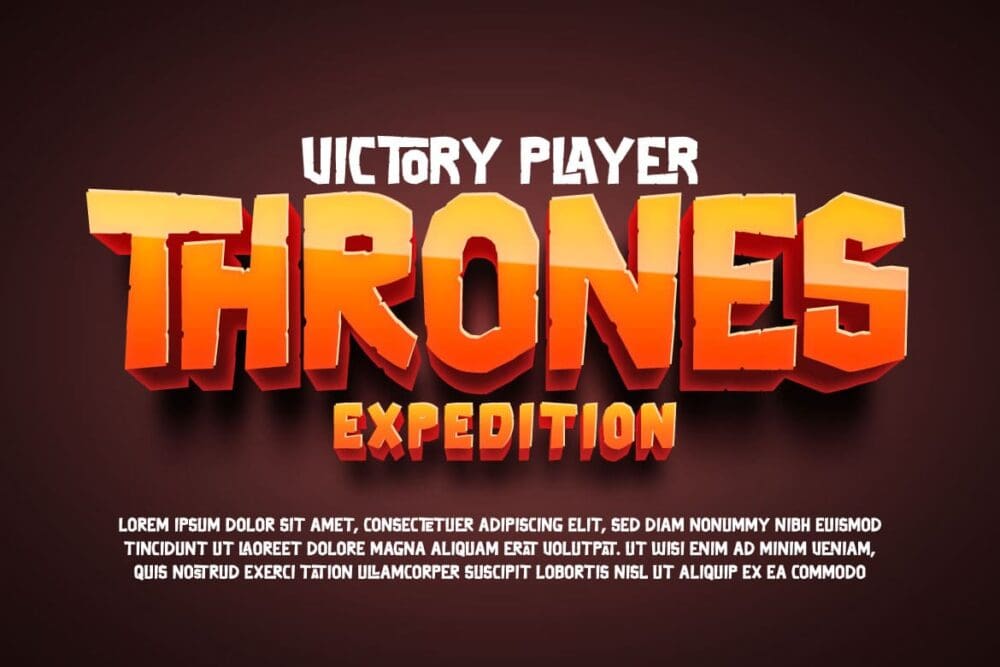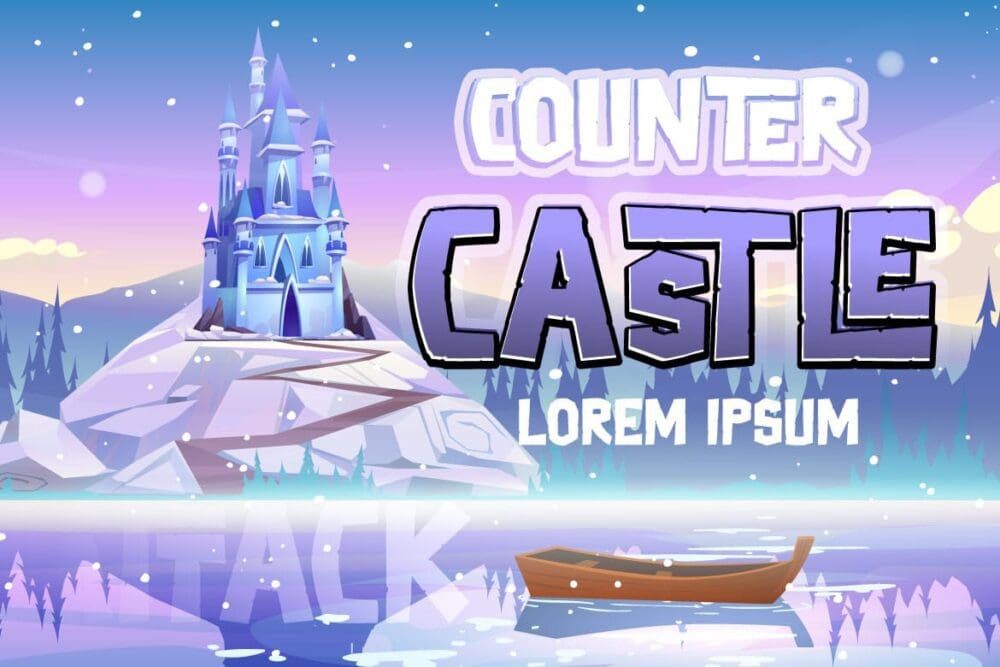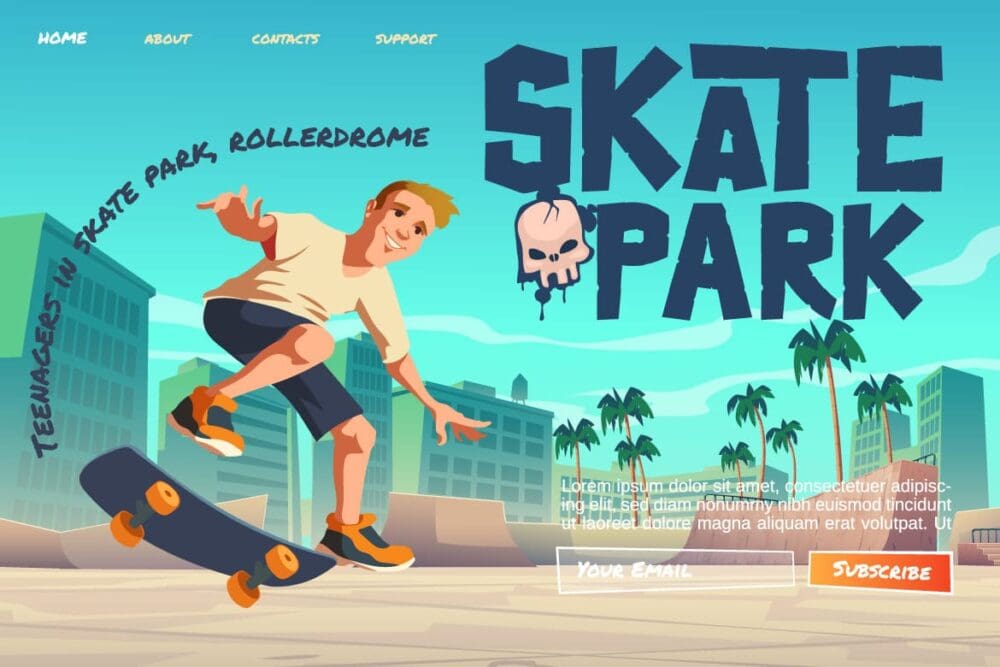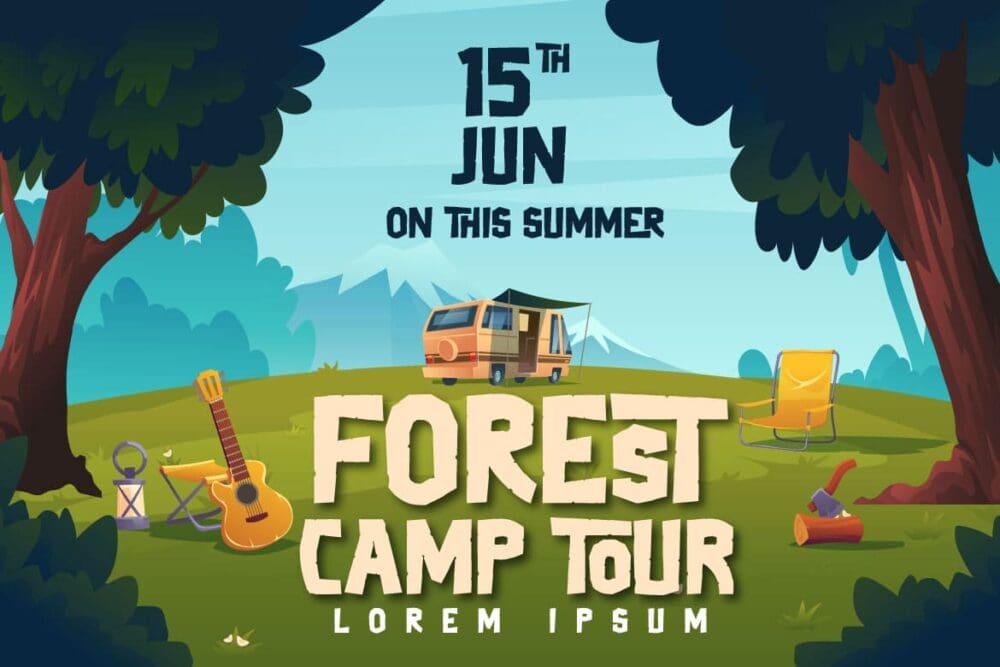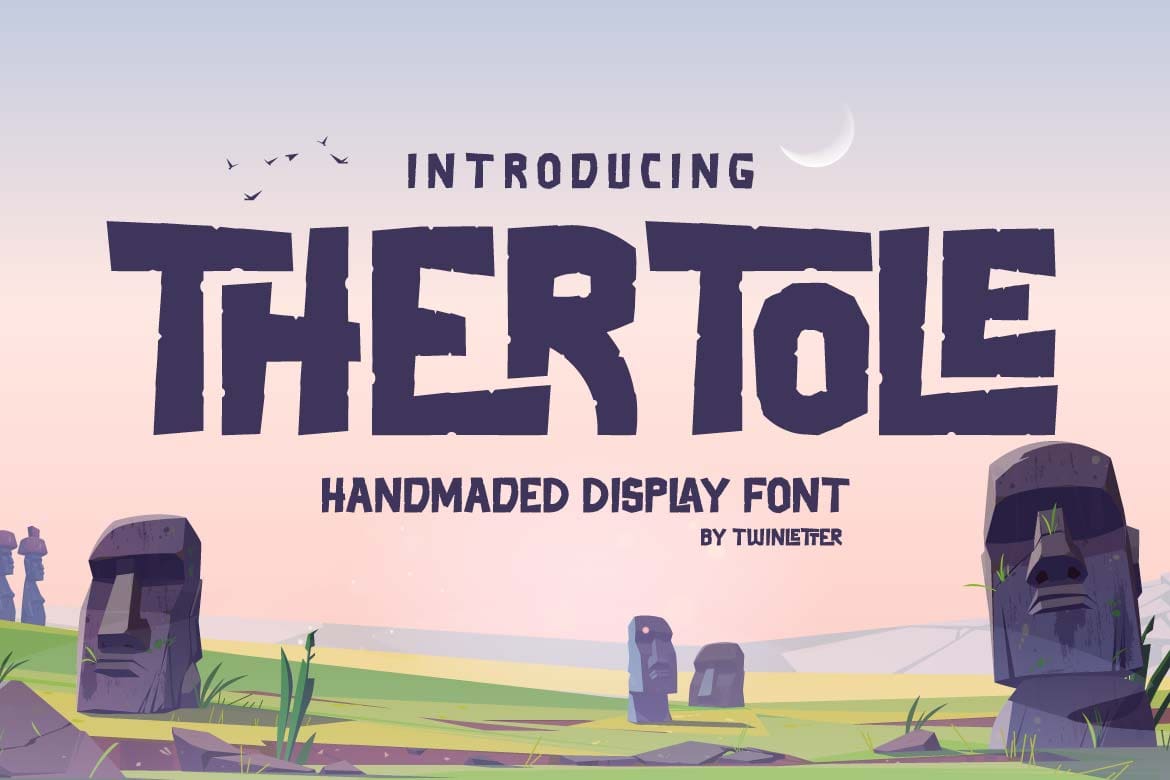
Thertole Font
Thertole is a dramatic Display Font with a strong background. Because of its rock-inspired design, this typeface is dashing and bold for individuals who dare to be distinctive. If you use this font for a variety of outdoor events, you will get an exquisite and unique look. Standard ligatures, character choices, and international language support are also included in this typeface.